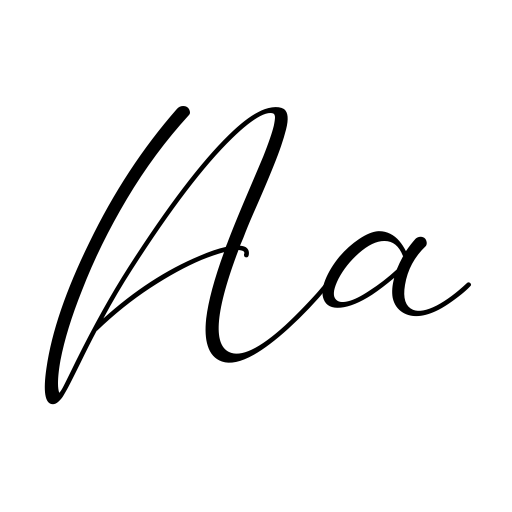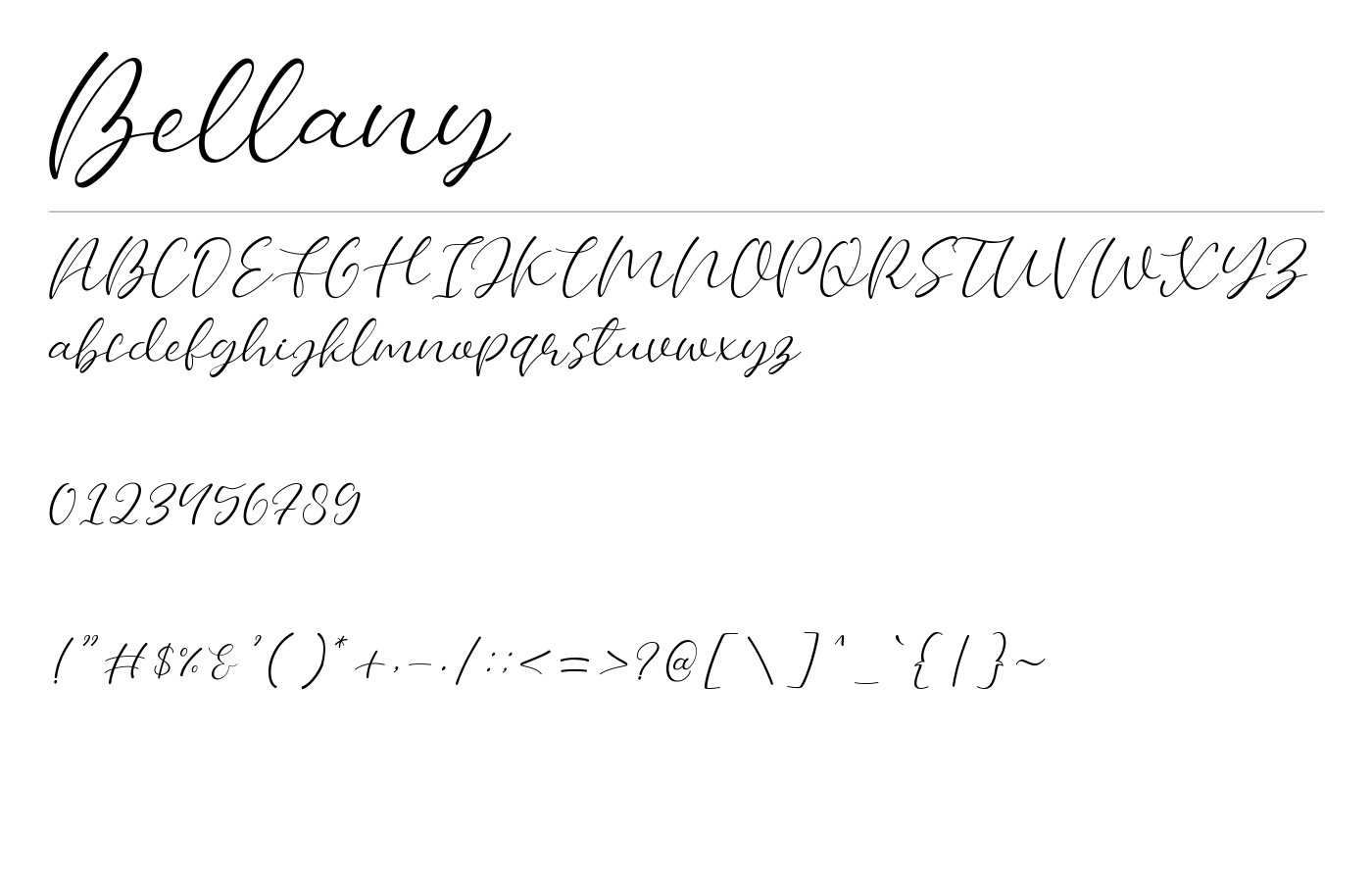
Bellany is an elegant script font characterized by its delicate, flowing strokes and graceful curves that mimic natural handwriting. Its thin, refined lines and high contrast create a sophisticated and charming feel, making it ideal for invitations, branding, and stylish editorial projects that seek a personal yet polished touch.
Bellany Font
About Bellany Font
| Font family | Bellany Font |
| Designer | Rayvaldo Rizki Pratama Augusta |